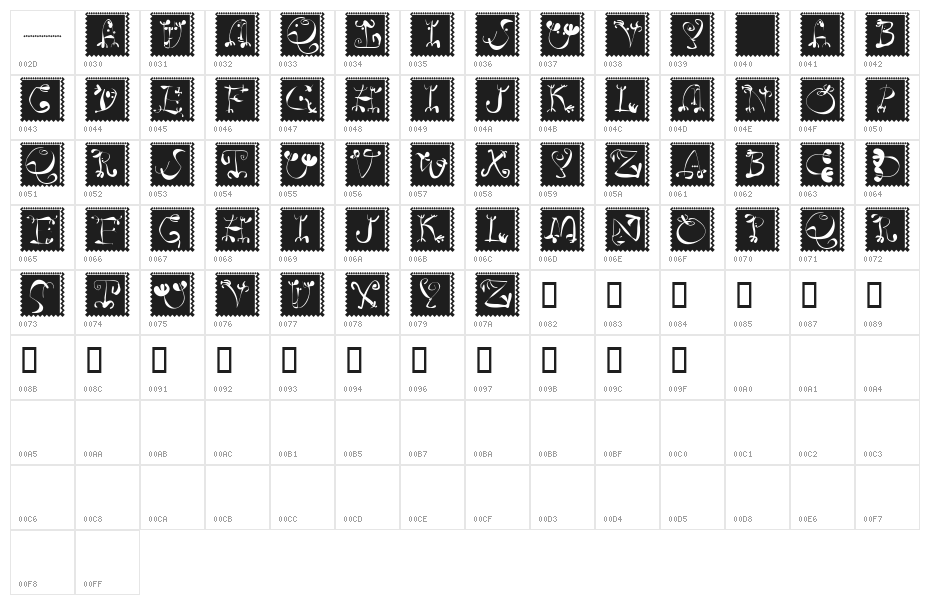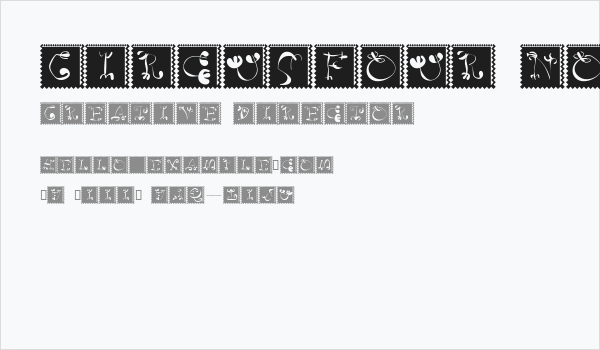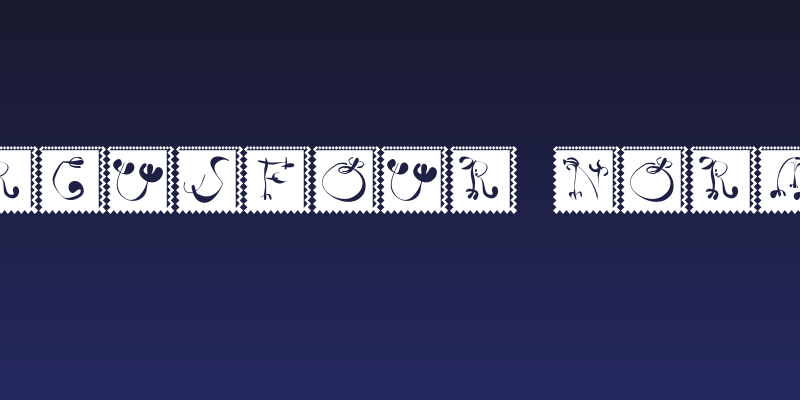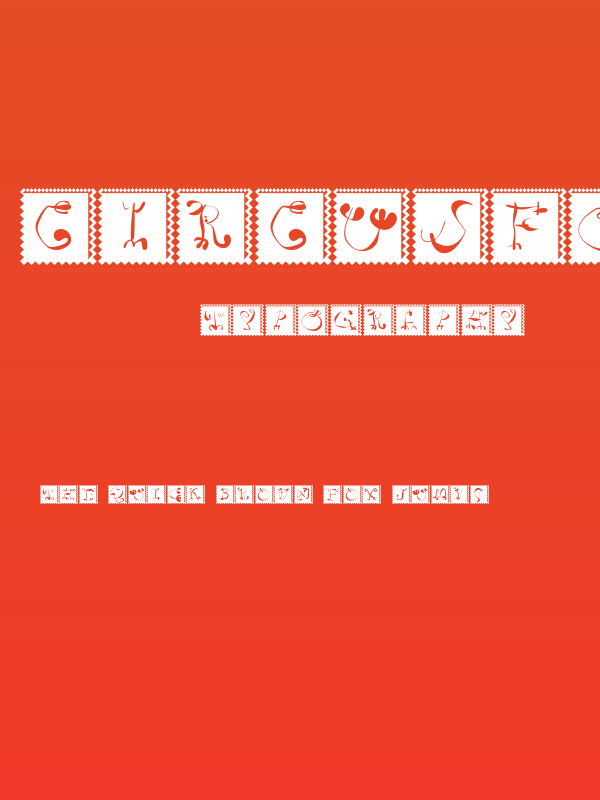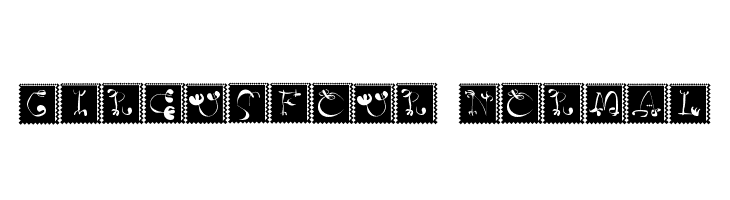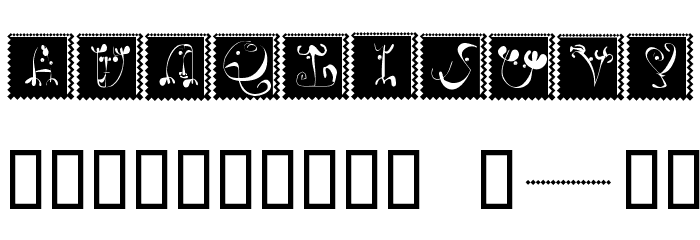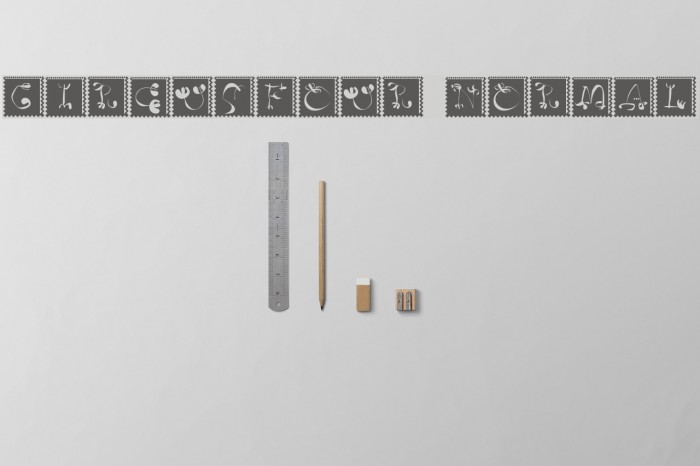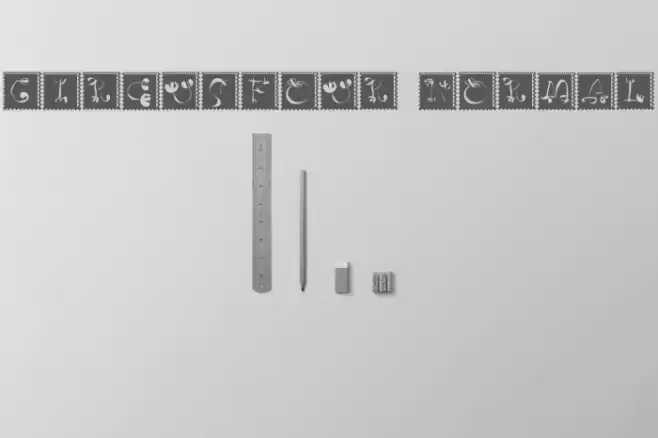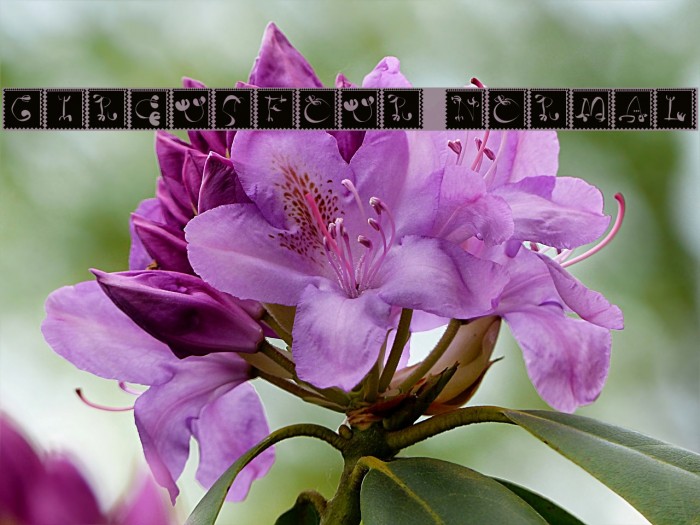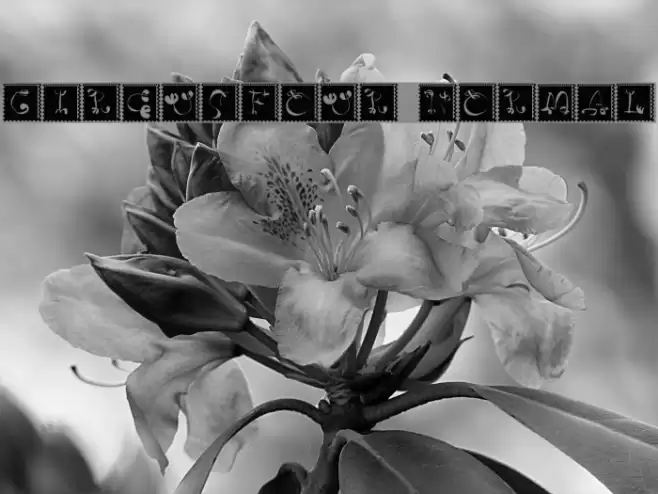
CircusFour Normal Font
CircusFour Normal Description
This font features a whimsical and playful design, reminiscent of a circus theme. Each character is adorned with unique, decorative elements that give it a lively and animated appearance. The uppercase and lowercase letters are crafted with a sense of movement and flair, incorporating curves and swirls that add to the overall festive feel. The numbers and special characters maintain the same stylistic approach, ensuring consistency throughout the font. Its bold and artistic style makes it stand out, capturing attention with its creative and imaginative design.
| Proposed Projects | Ideal for children's books, circus-themed event posters, playful branding, and creative design projects. |